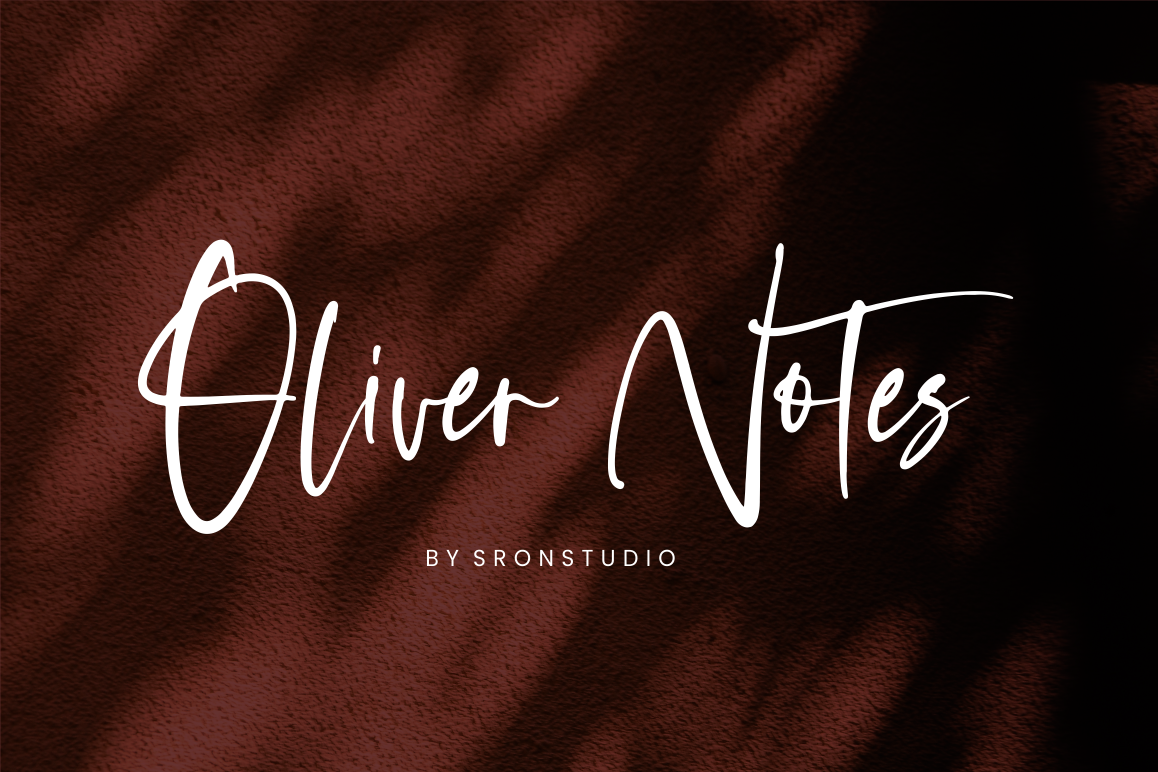
Oliver Notes - Handwritten Font
Oliver Notes - Handwritten Font is a new modern & stylish handwritten font. I'ts Perfect for logo, invitation, stationery, wedding designs, social media posts, advertisements, product packaging, product designs, label, photography, watermark, special events or anything.What's Included :